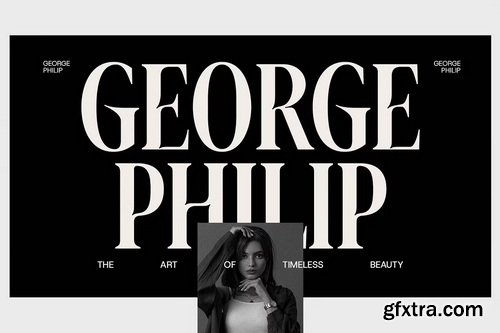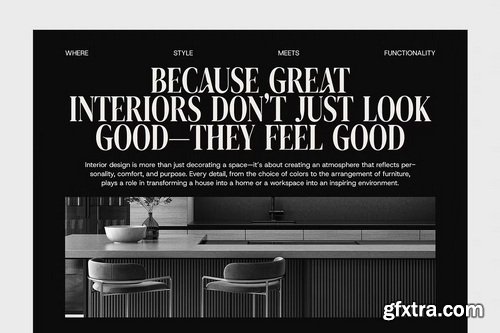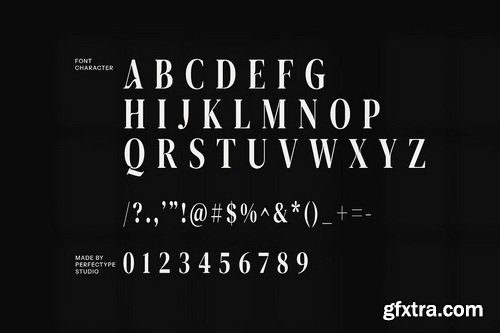
Introducing Artha Elegant Serif Font, a beautifully crafted typeface that embodies the perfect fusion of modern design with classic sophistication. With its refined serifs and contemporary elegance, Artha is designed to elevate your creative projects, whether you're crafting a brand identity, designing a website, or working on a high-end editorial layout. This versatile font is ideal for logos, branding, advertisements, boutique designs, product packaging, and more.
- At the heart of Artha is its graceful, yet sturdy serif structure. The font’s clean lines and balanced proportions exude a timeless elegance, while subtle curves and carefully designed flourishes add a touch of modern flair. Whether you're designing a sophisticated magazine layout or creating a luxury product label, Artha brings a polished, professional appearance that’s both stylish and easily legible.
- One of the standout features of Artha is its stunning ligatures and alternate characters. These design elements set Artha apart from other serif fonts, offering creative flexibility and allowing you to create unique typographic treatments. The ligatures seamlessly connect letters, lending a smooth, cohesive flow to your text, while the alternate forms provide an additional layer of creativity, enabling you to craft one-of-a-kind designs that truly stand out. This versatility makes Artha an excellent choice for logos, editorial designs, and custom branding projects, where a distinct and personalized touch is essential.
- Designed to be adaptable, Artha shines across a wide range of design applications. Whether you're working on a high-end boutique logo, an elegant website layout, or an advertisement for luxury products, this font brings an elevated sense of refinement to your work. It’s equally at home in the world of fashion, food, or premium services, providing the perfect balance of timeless design with modern usability.
- With its elegance and versatility, Artha Elegant Serif Font is an essential tool for any designer looking to add sophistication and style to their projects. Its distinctive ligatures and alternate forms, combined with its clean and polished letterforms, make it ideal for logos, branding, packaging, and more. Elevate your creative designs with Artha, and make a lasting impression with every project.